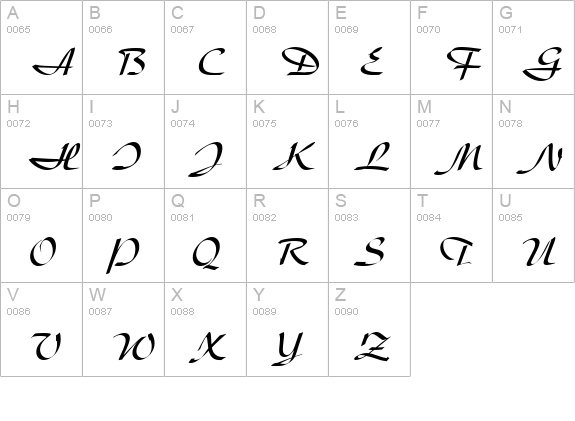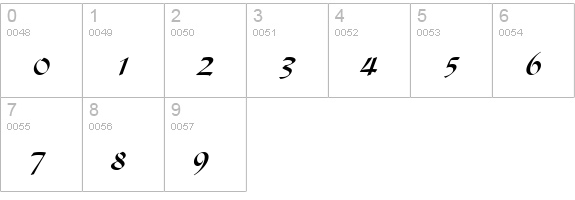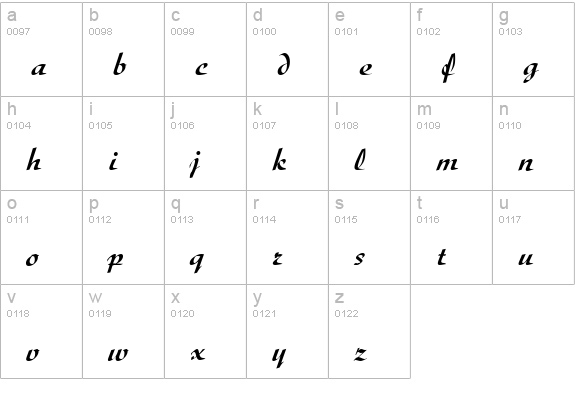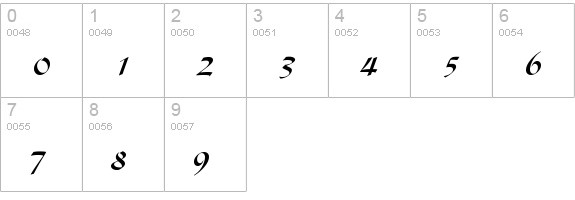
DiskusDMed Font Details
DiskusDMed is a beautifully crafted font that exudes elegance and sophistication. With its clean lines and modern appeal, this typeface is perfect for a wide range of design projects. Whether you are creating branding materials, websites, or printed materials, DiskusDMed will add a touch of class to your work. What sets DiskusDMed apart is not only its stunning design, but also the fact that it is completely free to download. Yes, you read that right – you can access this high-quality font at no cost! Simply head over to FontsMarket.com to download DiskusDMed and elevate your design projects to the next level. Don't miss out on this fantastic opportunity to enhance your creativity with a premium font that won't break the bank.